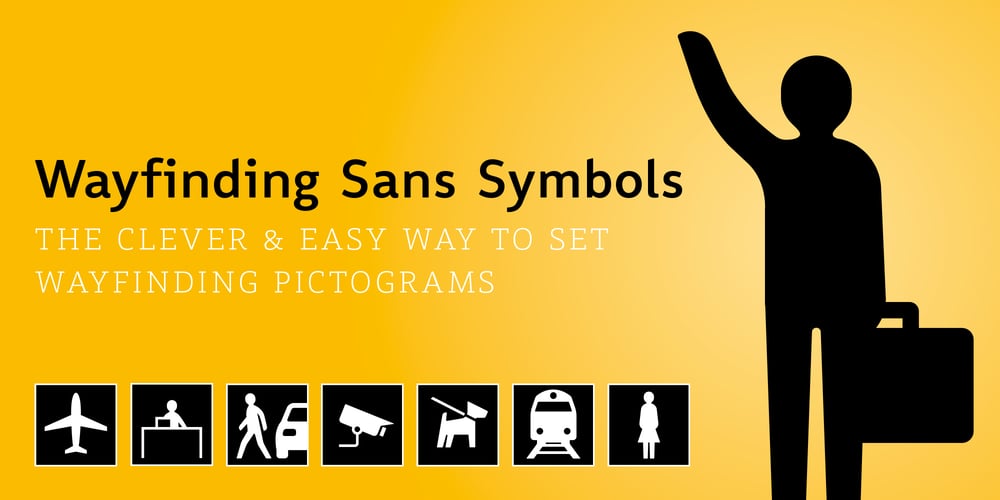
Wayfinding Sans Symbols Font Family was designed by Andreas Wohlleben and published by FDI. Wayfinding Sans Symbols contains 4 styles and family package options. Placing pictograms as single vector images makes designing signage a time-consuming task. But with Wayfinding Sans Symbols and its built-in OpenType intelligence using pictograms becomes as easy as typing words. With Wayfinding Sans Symbols you don’t need to scroll through endless glyph palettes to look for one symbol among hundreds of symbols. Just active ligatures and type in the mnemonic codes like #wheelchair, #parking, #toilet and so on. An overview of these codes can be found in the type specimen PDF. Each pictogram is available in 4 different versions and you can easily assign an additional background color or turn the symbol into a prohibition sign. Wayfinding Sans Symbols has a full coverage of the Unicode range “Transport & Map symbols” and a lot of additional signs that are missing in the typical wayfinding symbol sets. Beside the pictograms, Wayfinding Sans Symbols also has a huge set of arrows for every possible situation and you can easily switch between the different sets using OpenType feature controls. The enclosed letters and figures make it easy to set transport line numbers, room & storey numbers and much more. Wayfinding Sans Symbols is the perfect addition to Ralf Herrmann’s signage typeface Wayfinding Sans Pro, but it can also be used with any other typeface.